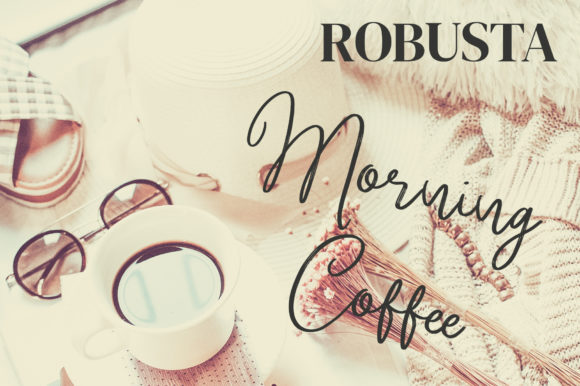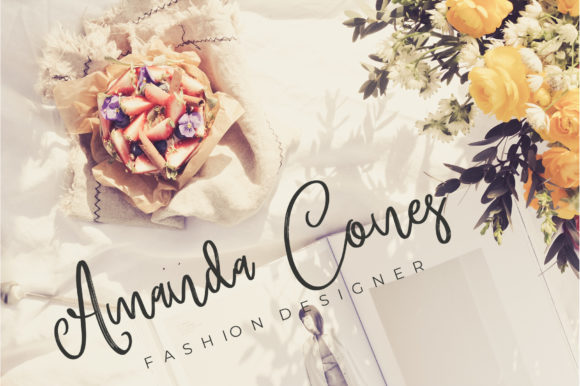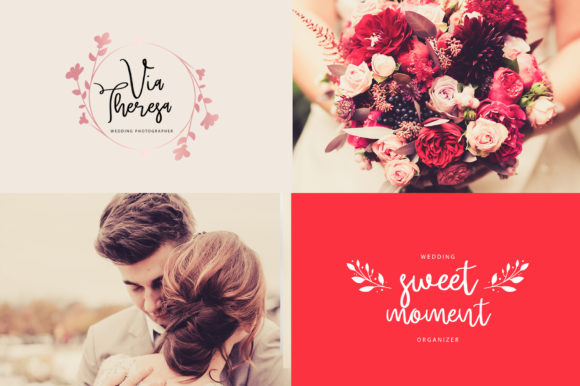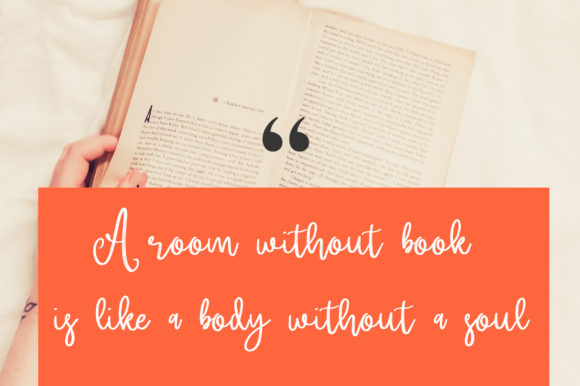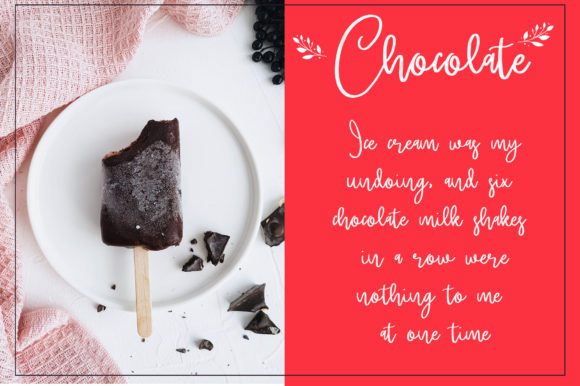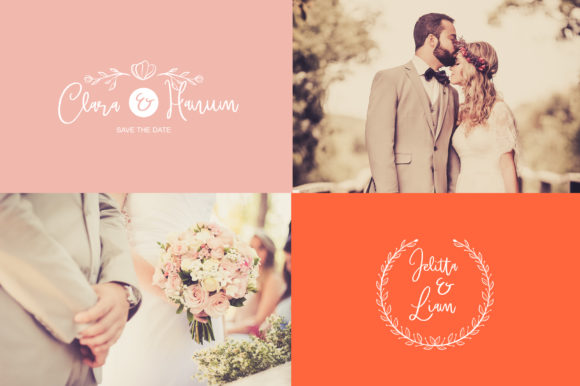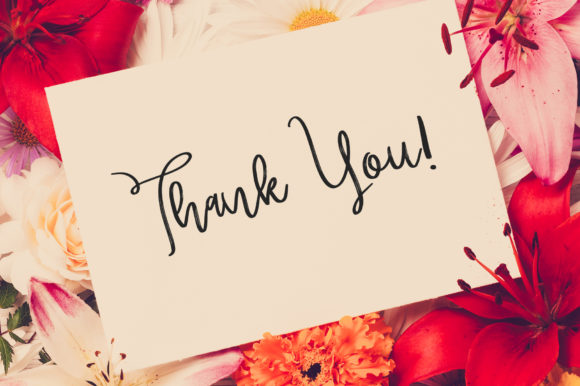
Brittney Font
About Brittney Font
Brittney is a lovely modern calligraphy font. It’s combining the classic look of calligraphy with a more modern style.